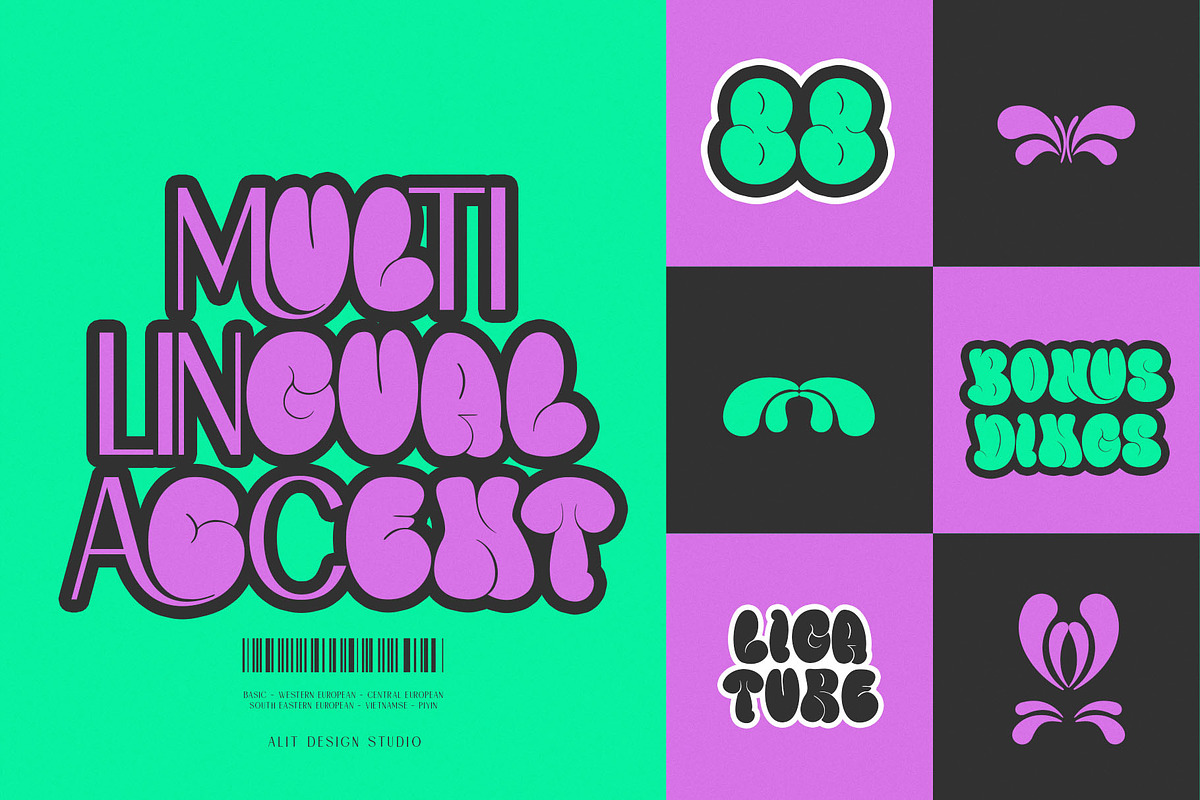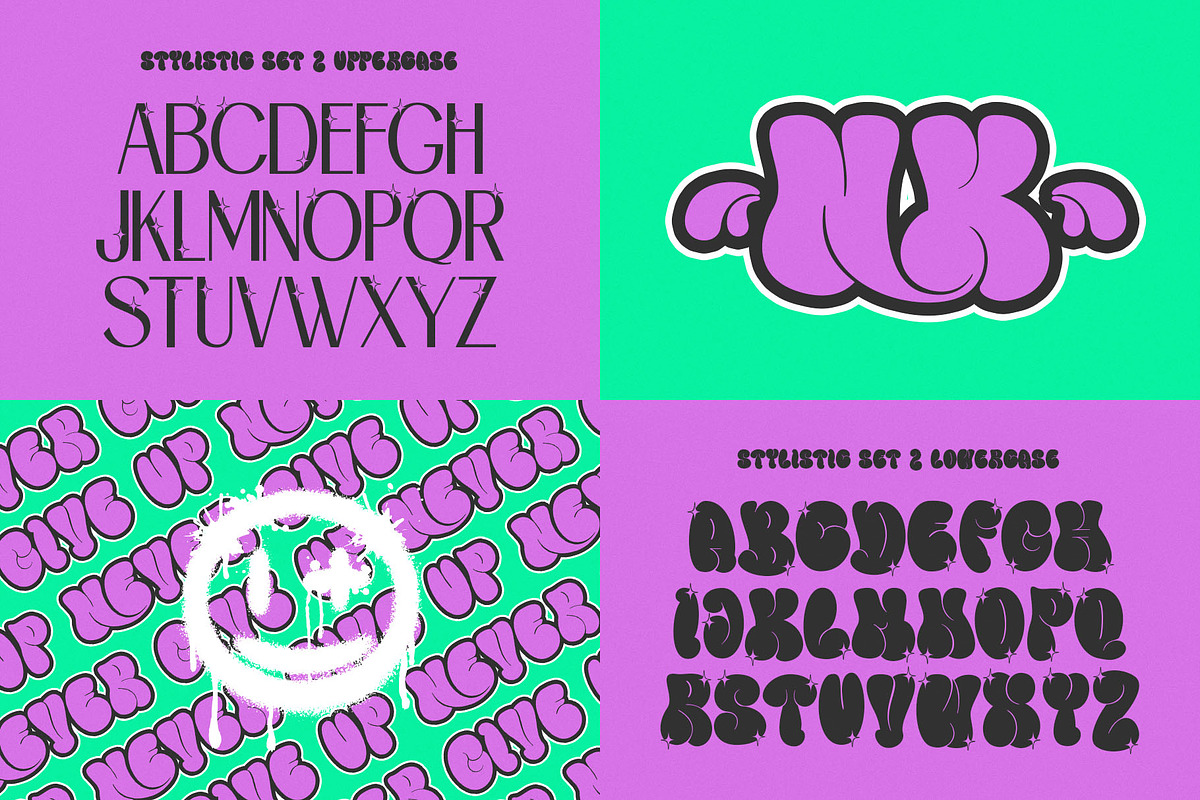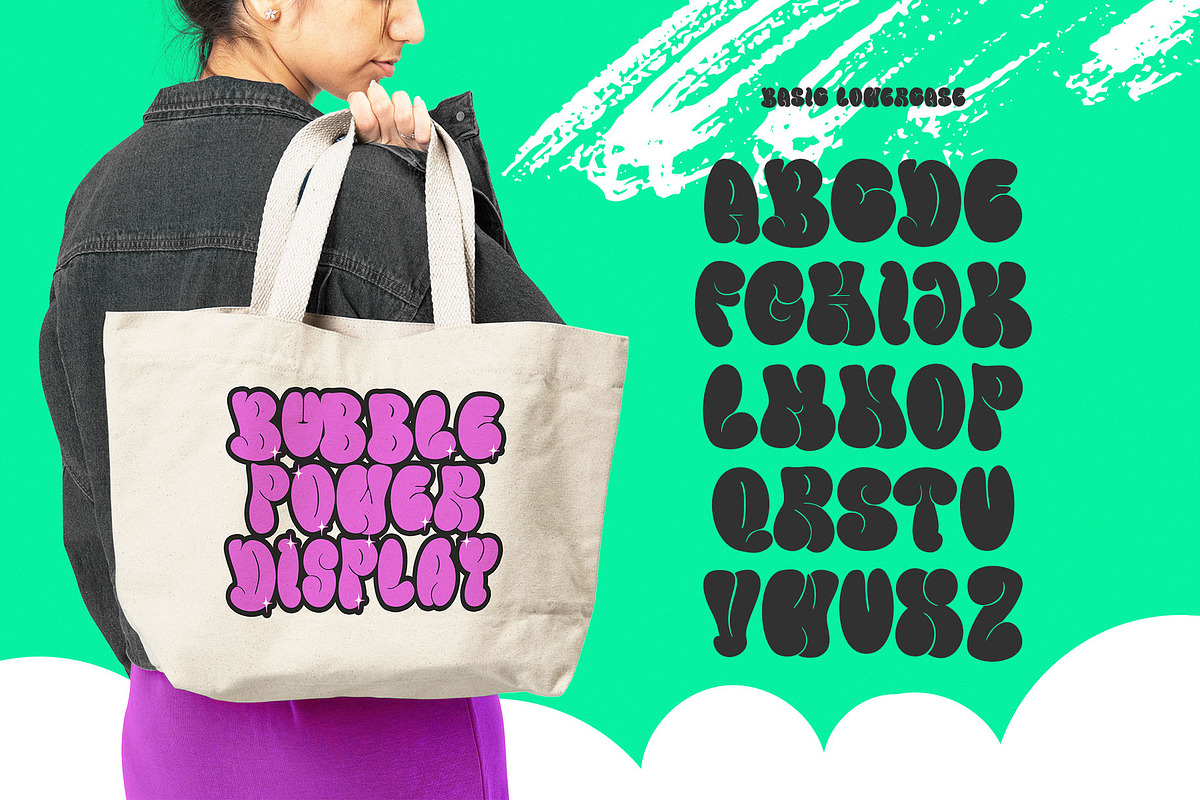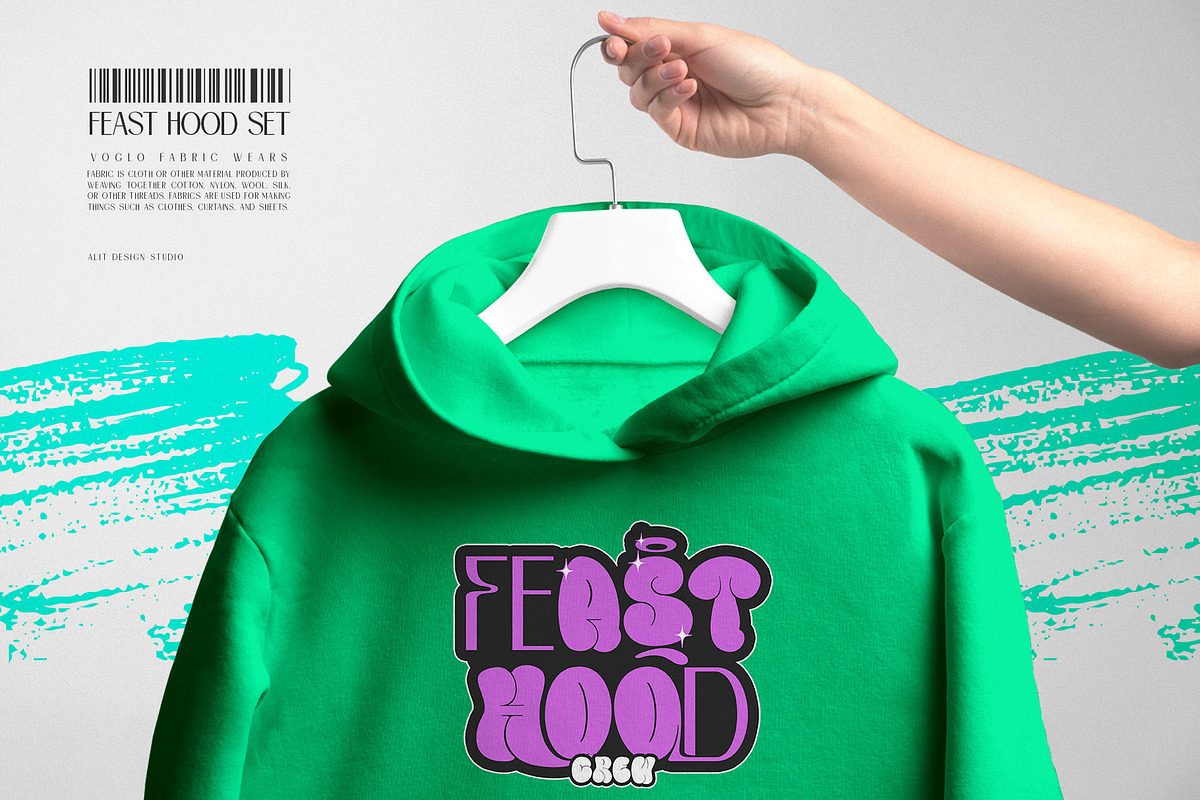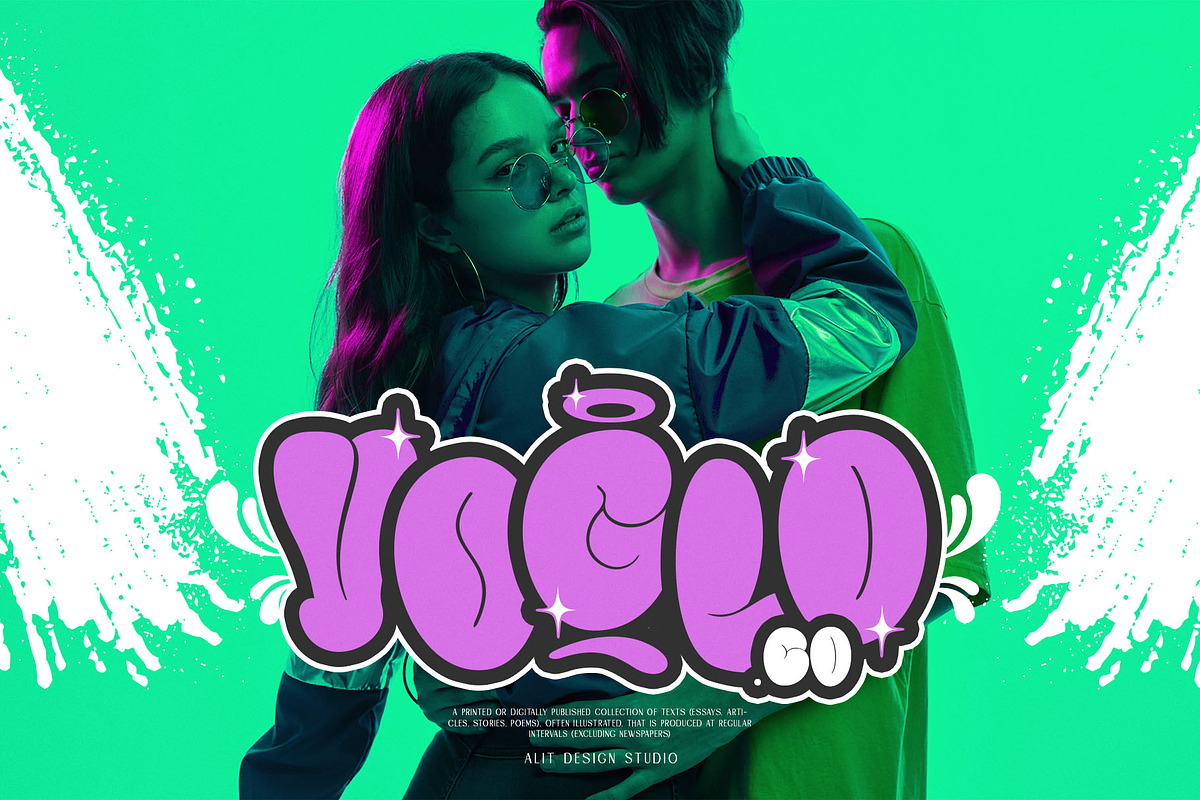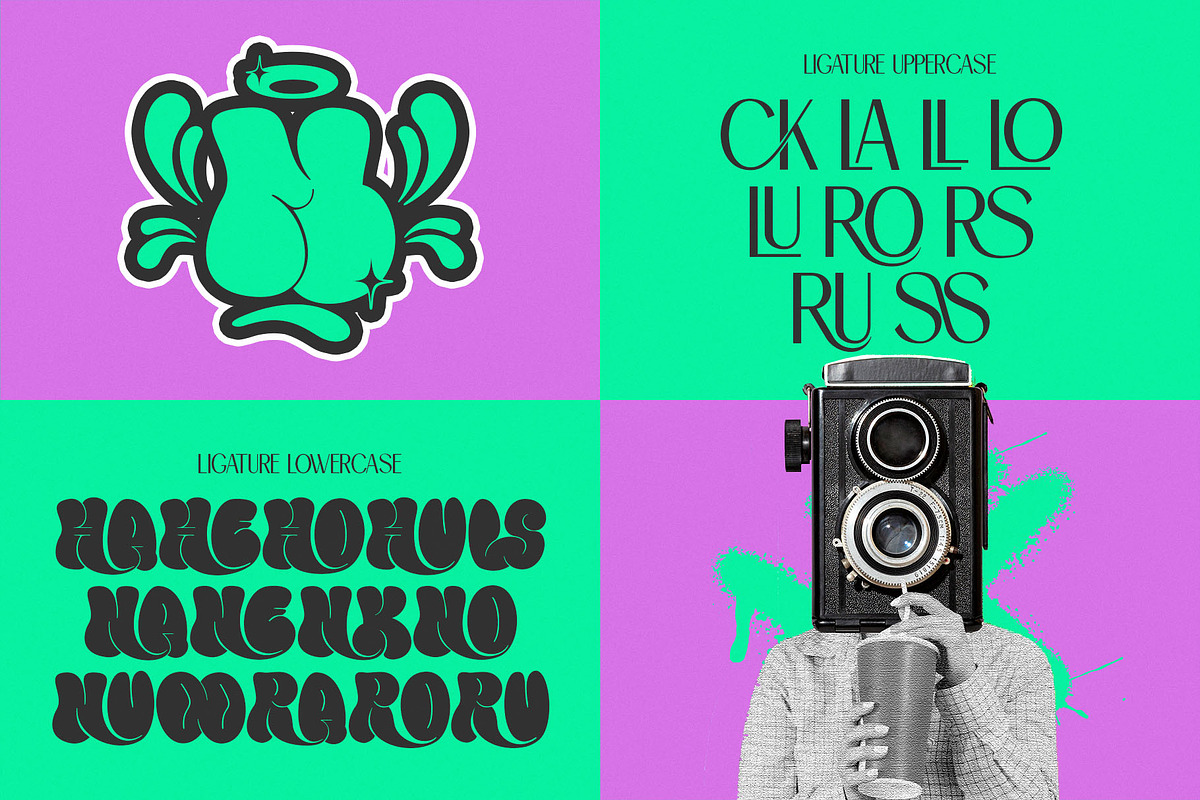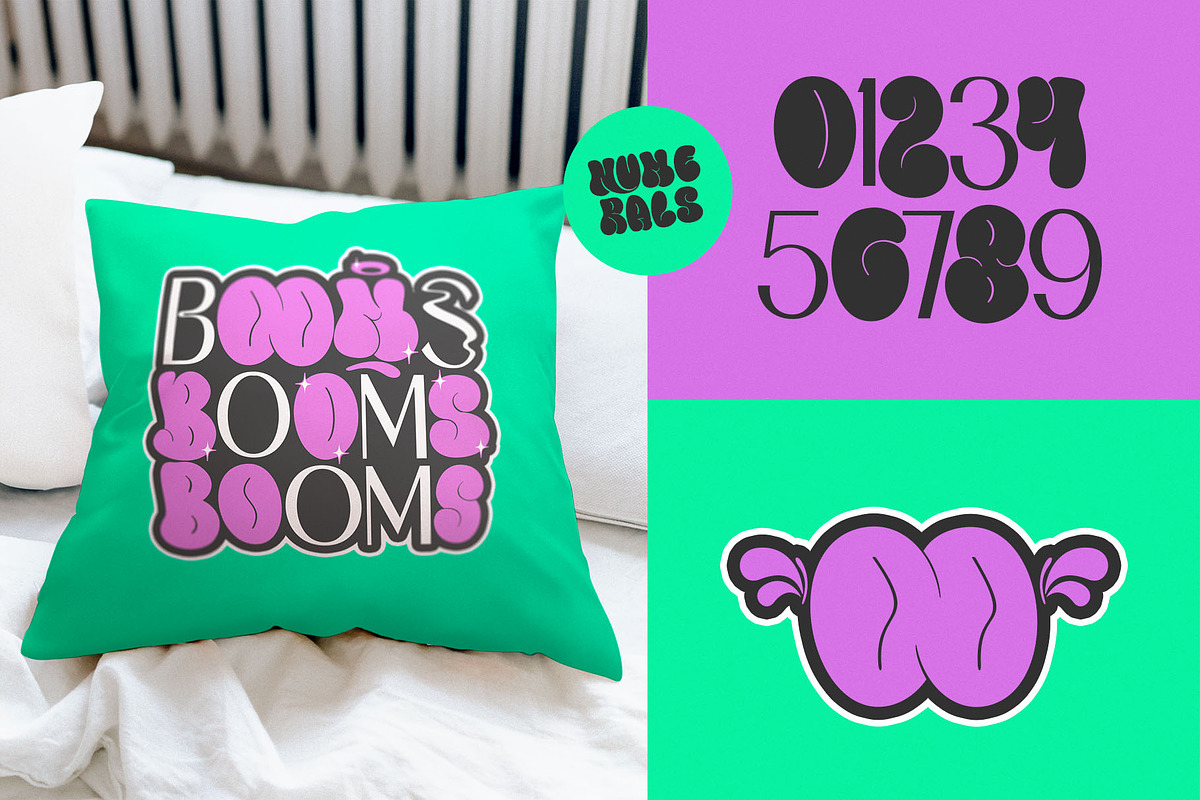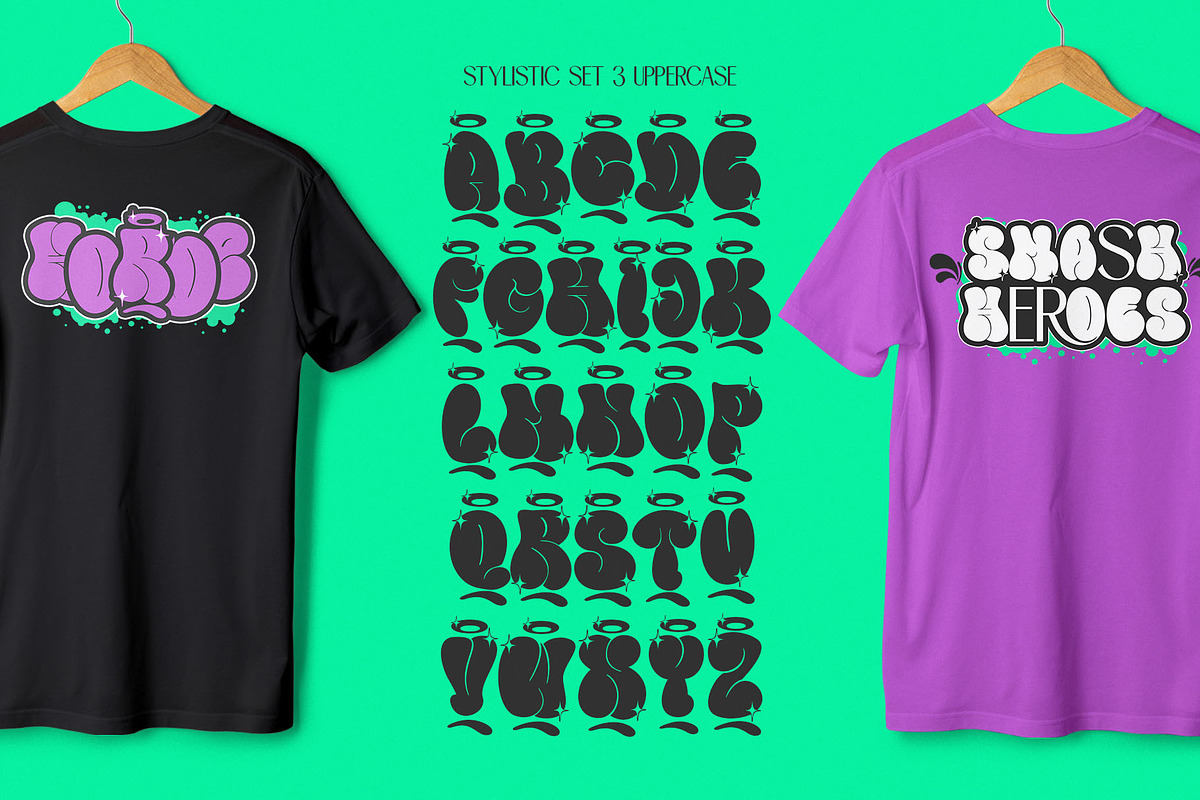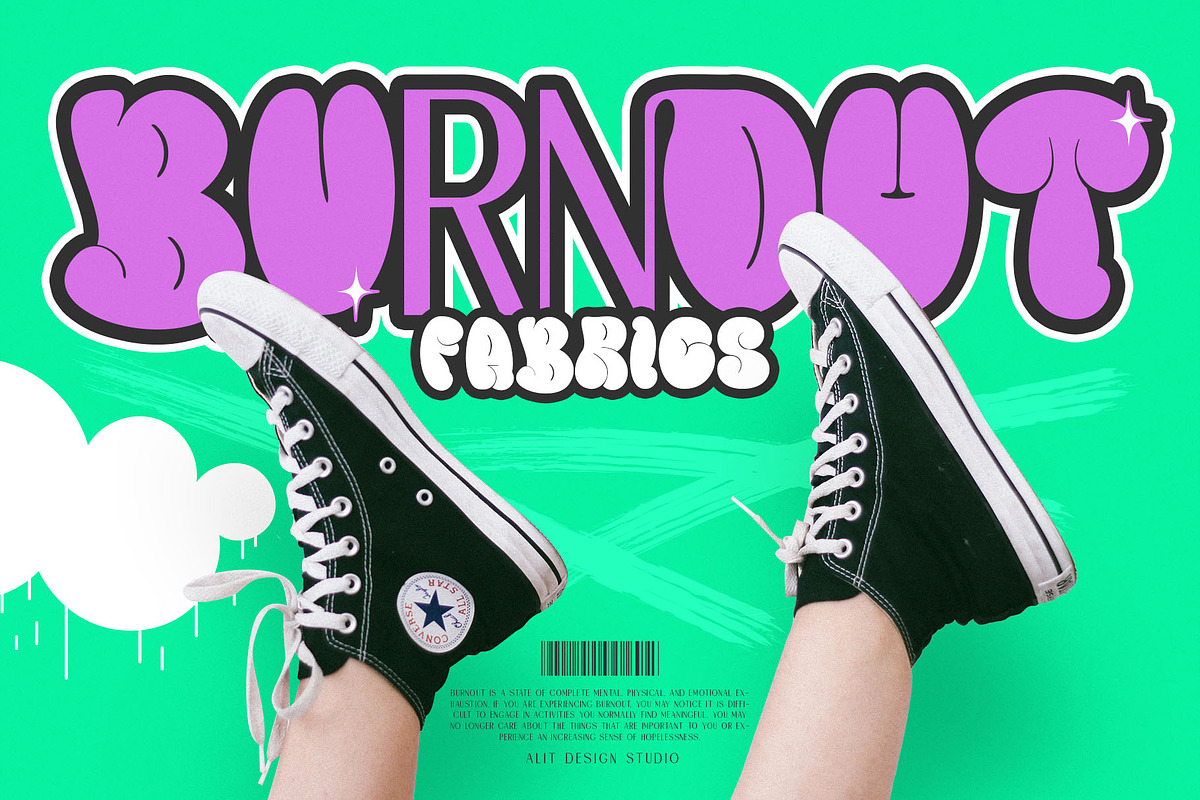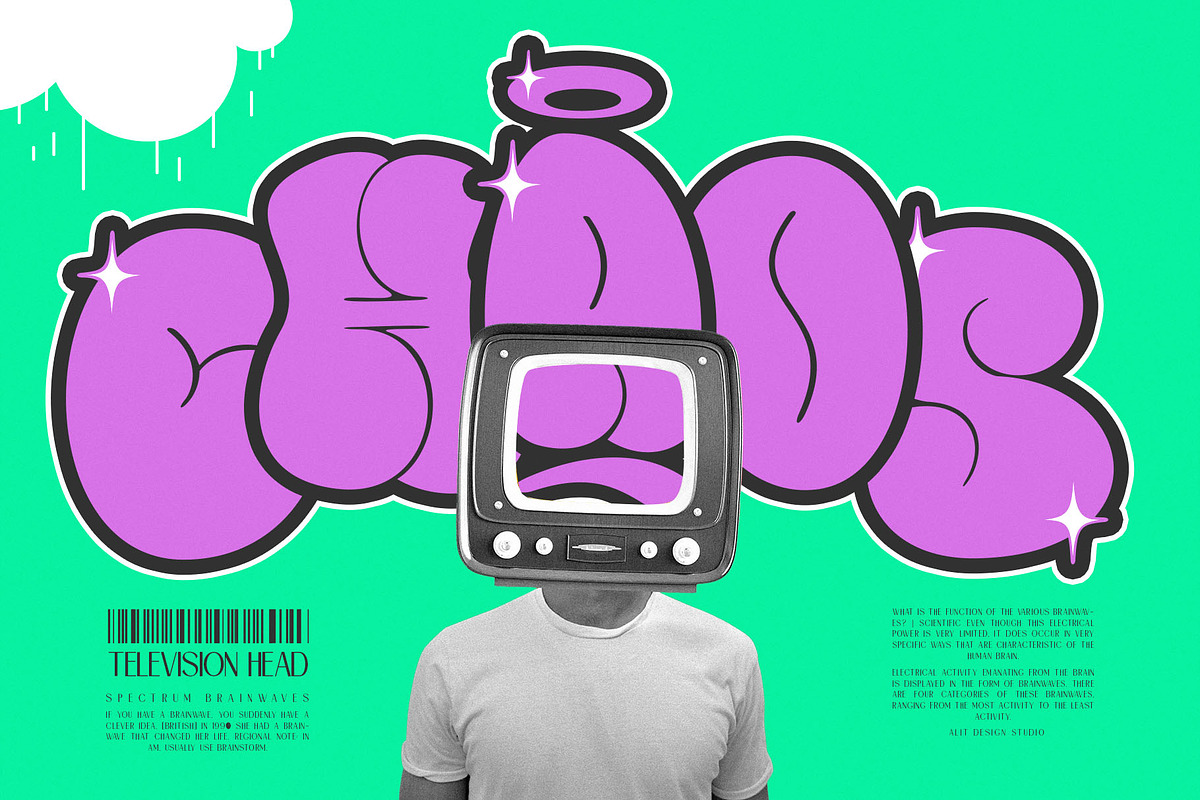
Mamboo Bubble Mix Graffiti Font
Introducing Mamboo Bubble Mix Graffiti Font: Where Sans Serif Meets Urban Edge
Unleash your creativity with Mamboo Bubble Mix, a dynamic fusion of sleek sans serif typography and edgy bubble graffiti style. This unique font encapsulates the essence of urban expression, offering a versatile tool for designers, artists, and creatives alike.
Mix Font Concept: Mamboo Bubble Mix seamlessly blends the simplicity of sans serif with the vibrant energy of bubble graffiti, creating a distinctive visual impact that stands out in any project.
Extensive Character Set: With a whopping 707 characters, Maboo Bubble Mix provides an extensive range of glyphs, symbols, and punctuation marks, ensuring comprehensive language support and versatility across various design applications.
Alternatives and Ligatures: Elevate your designs with Mamboo Bubble Mix's alternate characters and ligatures, allowing you to customize and enhance the visual appeal of your text effortlessly.
Multilingual Support: Mamboo Bubble Mix goes beyond borders with its multilingual PUA Unicode support, enabling seamless integration of diverse languages and writing systems into your projects.
Whether you're crafting eye-catching posters, captivating branding materials, or striking digital artwork, Mamboo Bubble Mix empowers you to add an urban edge and playful charm to your creations. From bold headlines to subtle accents, this font offers endless possibilities for expression and creativity.
Ideal For:
- Streetwear Brands: Infuse your apparel designs and marketing materials with an authentic urban vibe.
- Graffiti Art: Bring your digital graffiti projects to life with Maboo Bubble Mix's expressive letterforms.
- Social Media Graphics: Stand out on social platforms with captivating typographic compositions.
- Editorial Design: Add personality and flair to magazine layouts, editorial spreads, and book covers.